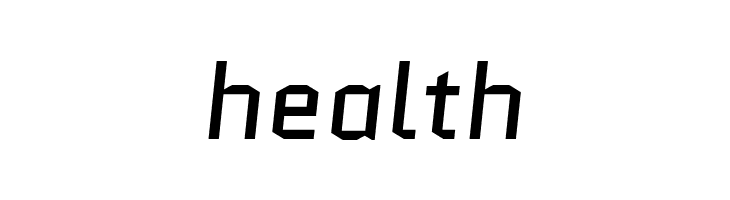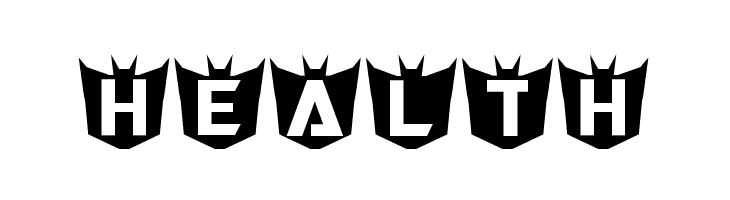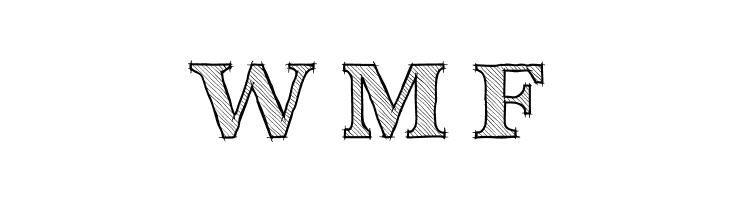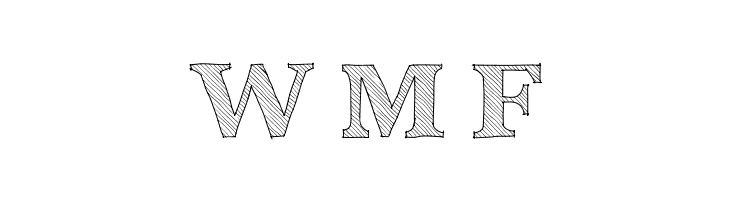
A rustic, handcrafted font with bold, uneven strokes and vintage charm.
A bold, outlined font with uniform width and strong presence.
A modern serif font with clean lines and balanced proportions.
A sophisticated serif font with medium weight and italic style, featuring high contrast strokes.
A classic serif font with outlined letters and a modern, elegant style.
A bold, serif font with a classic and authoritative style.
A playful, bold font with rounded edges and a slightly condensed style.
A bold, distressed font with a textured, artistic appearance.
A playful and casual handwritten font with fluid, organic letterforms and heart-shaped embellishments.
A playful, handwritten font with whimsical, irregular characters.
A bold, distressed font with a textured, grunge style.
A playful, rounded font with a hand-drawn, whimsical style.
A playful, hand-drawn font with bold, irregular strokes and a casual feel.
A bold, hand-drawn font with a playful and informal style.
A bold, italicized font with a hand-drawn, energetic style.
A bold, angular font with a dynamic and modern style.
A bold, decorative font with a unique gradient effect and intricate detailing.
A bold, italic serif font with a gradient texture, offering a dynamic and modern look.
A bold, angular graffiti-style font with dynamic, fragmented characters.
A futuristic, geometric font with sharp angles and a bold, digital aesthetic.
A dynamic, handwritten-style font with expressive strokes and artistic flair.
A bold, handwritten-style font with a dynamic and playful character.
A bold, decorative font with a three-dimensional, playful style.
A playful and whimsical font with bold, quirky letterforms.
Bold, geometric font with uniform width and angular edges.
A modern, rounded sans-serif font with uniform stroke width and balanced spacing.
A bold, distressed font with a rugged, grunge appearance.
A bold, geometric font with a strong, modern presence.
A bold, geometric font with uniform stroke widths and a modern edge.
A bold, decorative font with a gothic and medieval style.
A dynamic and elegant cursive script font with a modern yet classic appeal.